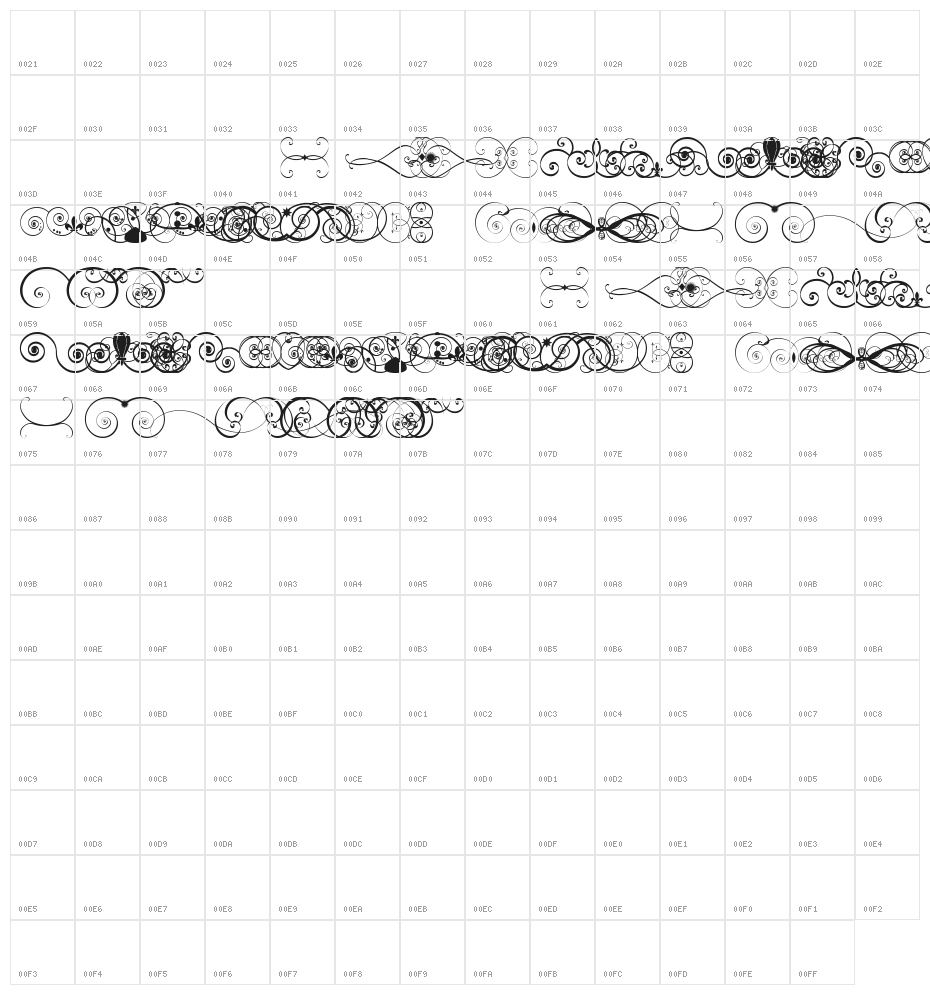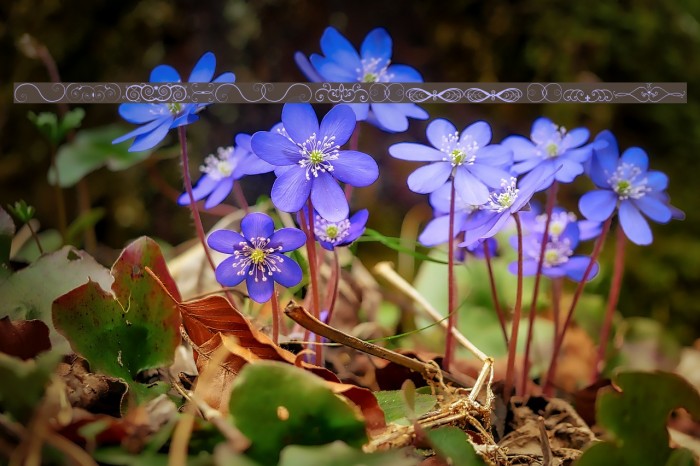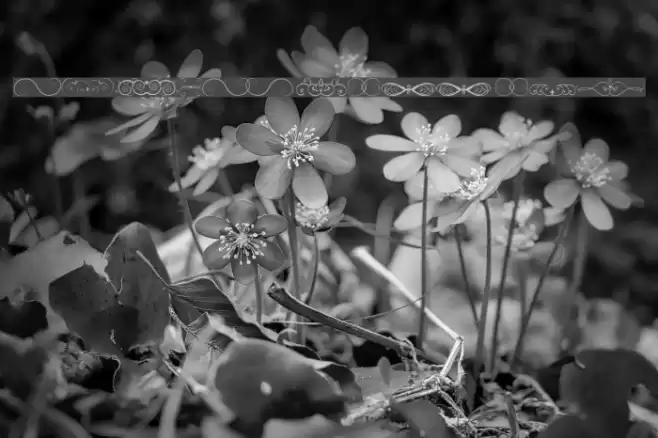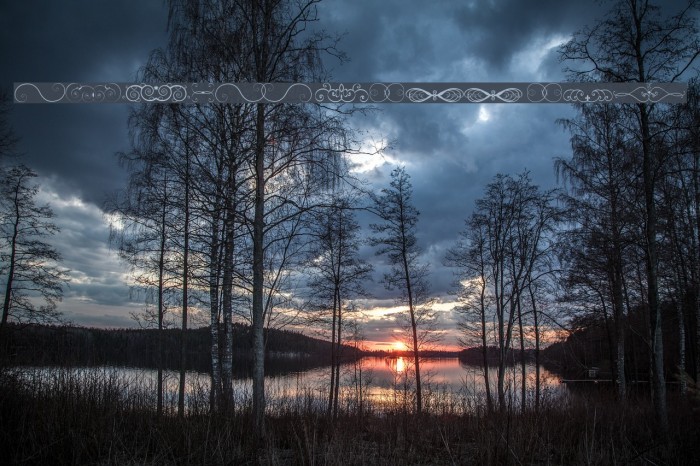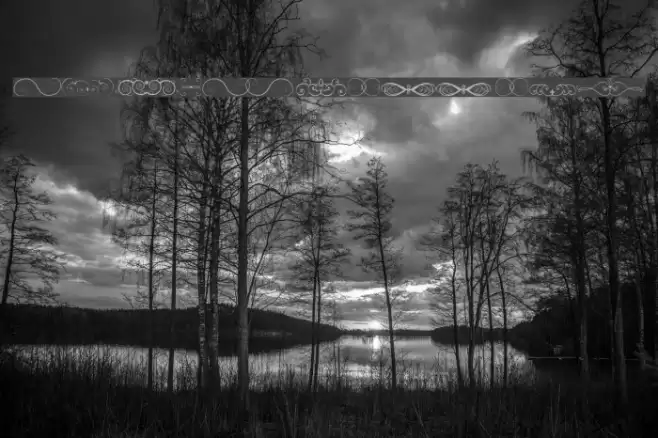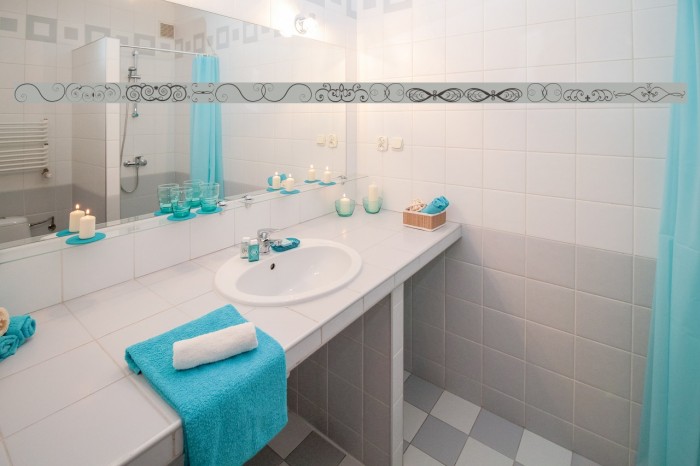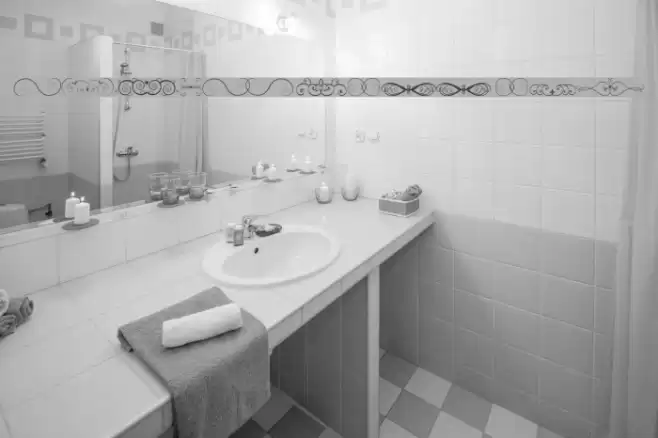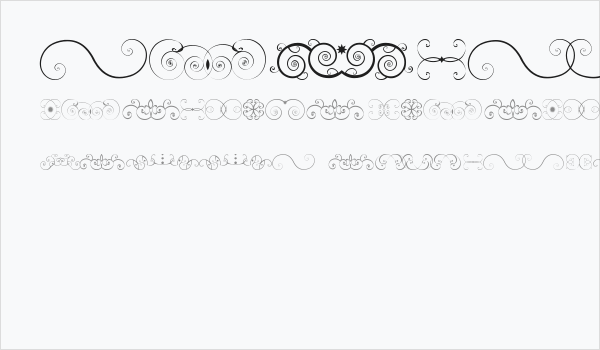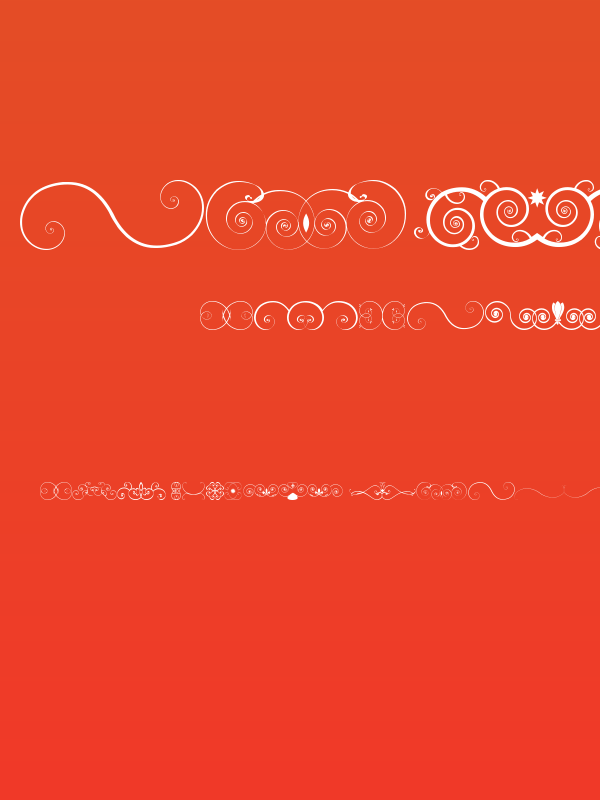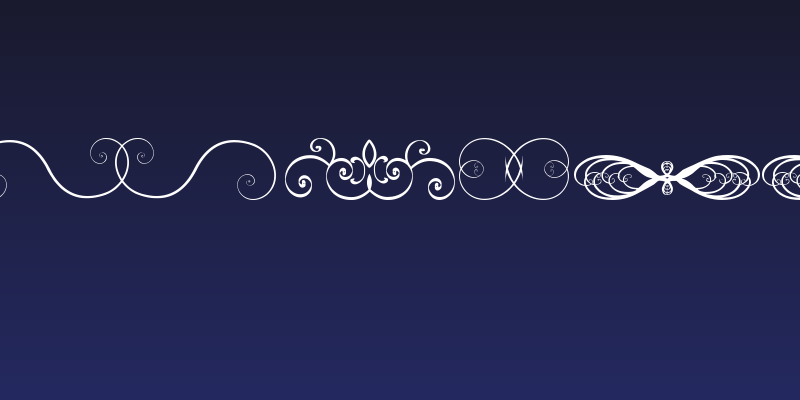
Ornametss tfb Font
Ornametss tfb Description
This collection of ornamental designs features intricate and elaborate patterns that are highly decorative. The elements include swirling lines, floral motifs, and symmetrical shapes, all crafted with a delicate touch. These ornaments are perfect for adding a touch of elegance and sophistication to any project. The designs are versatile, allowing for use in a variety of contexts, from invitations and greeting cards to decorative borders and frames. The intricate details and flowing lines create a sense of movement and grace, making them ideal for projects that require a refined aesthetic.
| Use Case | Decorative elements for various design projects. |
| Proposed Projects | Ideal for wedding invitations, decorative borders, greeting cards, and elegant branding. |